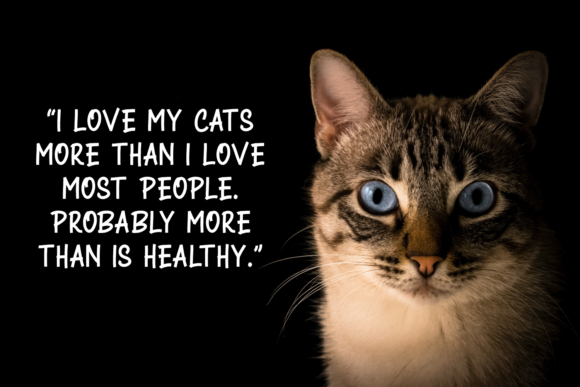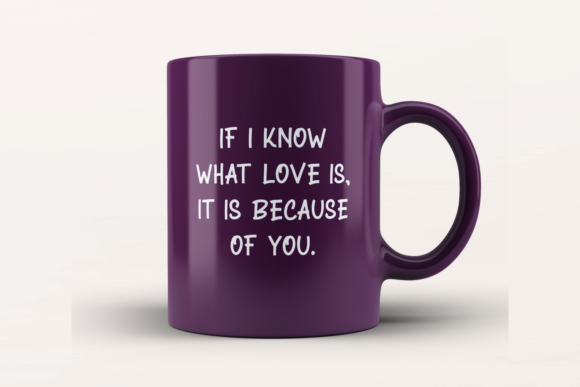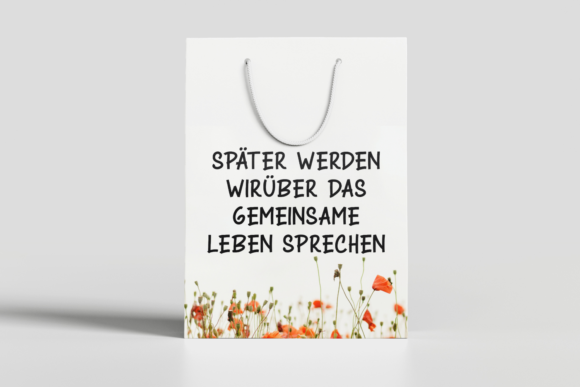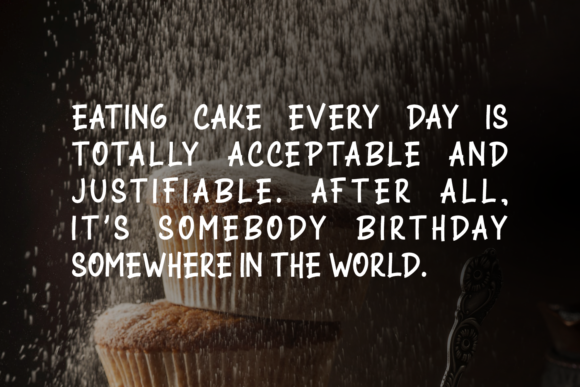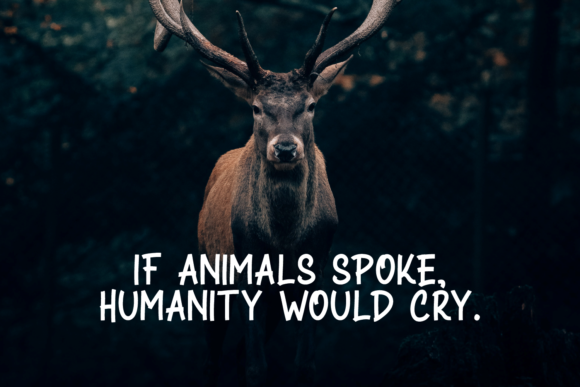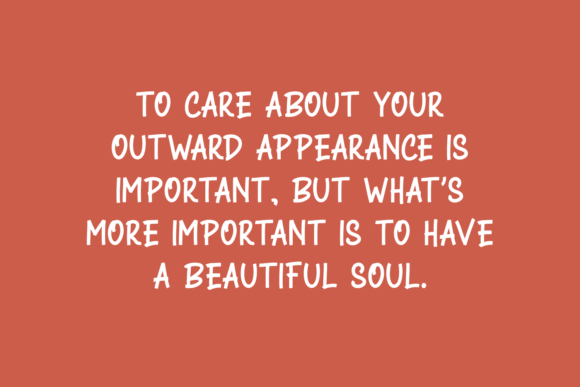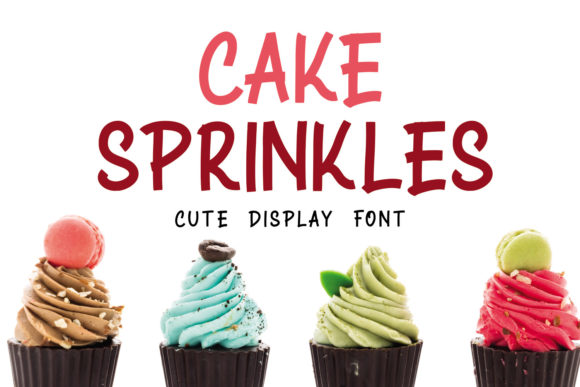
Cake Sprinkles Font: The Sweetest Addition to Your Design Projects
Are you looking for a font that adds a touch of fun, friendliness, and chic to your design projects? Look no further than the Cake Sprinkles Font! This delightful display font is perfect for crafters, designers, and anyone looking to add a sprinkle of personality to their creations. In this article, we’ll dive into the world of Cake Sprinkles Font and explore its features, uses, and benefits.
What is Cake Sprinkles Font?
Cake Sprinkles Font is a unique and playful display font designed to bring a smile to your face. Its fun and friendly vibe makes it perfect for a wide range of projects, from greeting cards and invitations to branding, labels, and more. The font’s chic and modern style ensures that it will elevate your designs and add a touch of sophistication.
Features of Cake Sprinkles Font
- Fun and Friendly: Cake Sprinkles Font is designed to be playful and fun, making it perfect for projects that require a lighthearted touch.
- Chic and Modern: The font’s sleek and modern design ensures that it will add a touch of sophistication to your projects.
- Versatile: Cake Sprinkles Font can be used for a wide range of projects, from cards and invitations to branding and labels.
- Easily Readable: Despite its playful design, Cake Sprinkles Font is easy to read, making it perfect for both digital and print projects.
Uses of Cake Sprinkles Font
Cake Sprinkles Font is perfect for a variety of design projects, including:
- Greeting Cards: Add a touch of fun and personality to your greeting cards with Cake Sprinkles Font.
- Invitations: Make your invitations stand out with this playful and chic font.
- Branding: Use Cake Sprinkles Font to add a touch of whimsy to your brand’s identity.
- Labels: Create custom labels for your products or gifts with this delightful font.
- Social Media Graphics: Add a sprinkle of fun to your social media graphics with Cake Sprinkles Font.
Benefits of Using Cake Sprinkles Font
By using Cake Sprinkles Font in your design projects, you’ll enjoy several benefits, including:
- Unique and Eye-Catching Designs: Cake Sprinkles Font will help your designs stand out from the crowd.
- Time-Saving: With Cake Sprinkles Font, you can create professional-looking designs in no time.
Tips and Tricks for Using Cake Sprinkles Font
Here are some tips and tricks for getting the most out of Cake Sprinkles Font:
- Experiment with Different Sizes: Try using Cake Sprinkles Font in different sizes to create visual interest.
- Mix and Match: Combine Cake Sprinkles Font with other fonts to create a unique and eye-catching design.
- Use it for Headings: Cake Sprinkles Font is perfect for headings and titles, making it a great choice for adding a touch of personality to your designs.
| Font Name | Cake Sprinkles Font |
| Author | Girinesia |
Cake Sprinkles Font is a fun, friendly, and chic display font that’s perfect for adding a touch of personality to your design projects. With its versatile design and easy-to-use format, it’s an excellent choice for crafters, designers, and anyone looking to create unique and eye-catching designs. Whether you’re creating greeting cards, invitations, branding, labels, or social media graphics, Cake Sprinkles Font is sure to elevate your designs and bring a smile to your face.